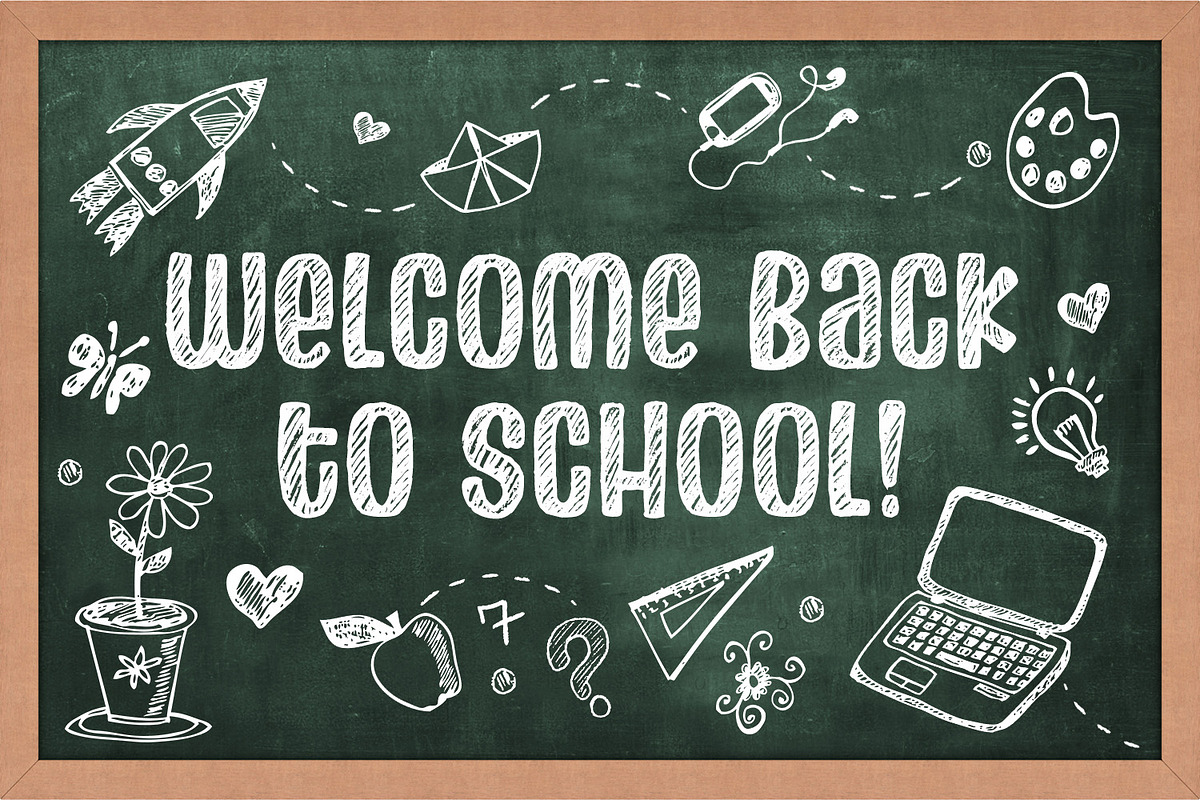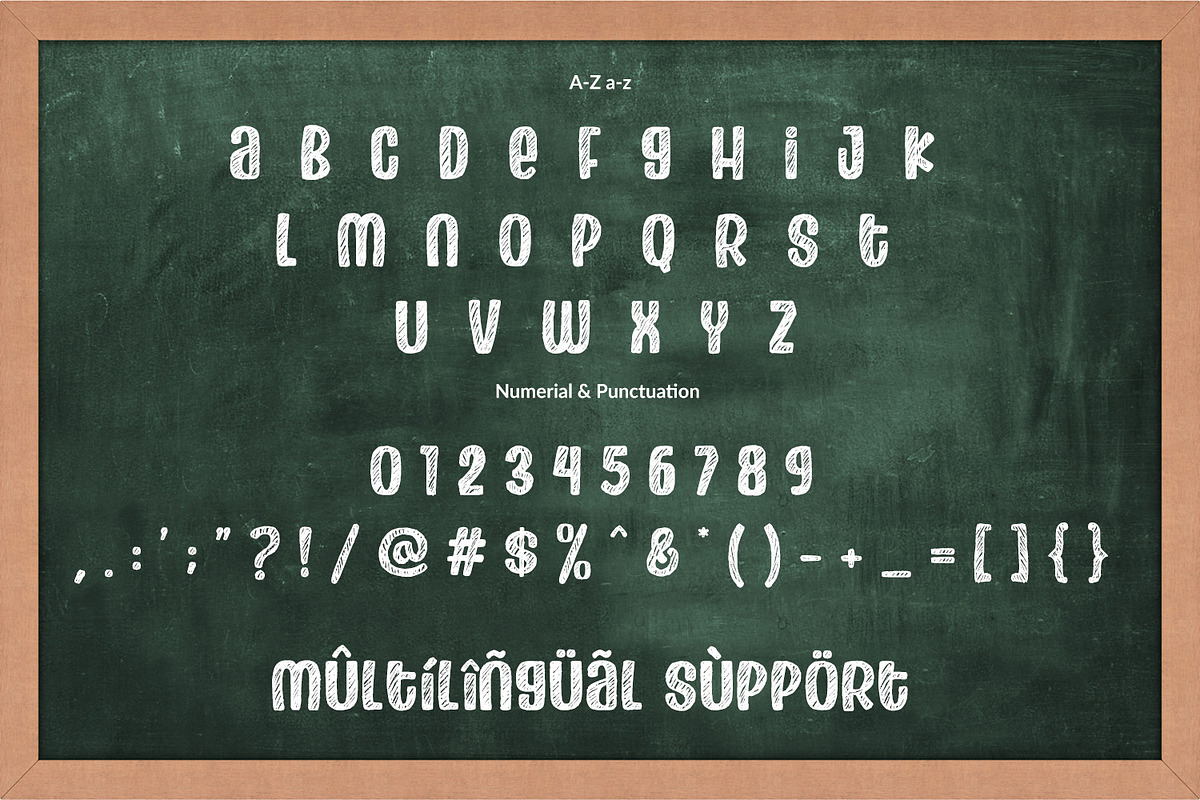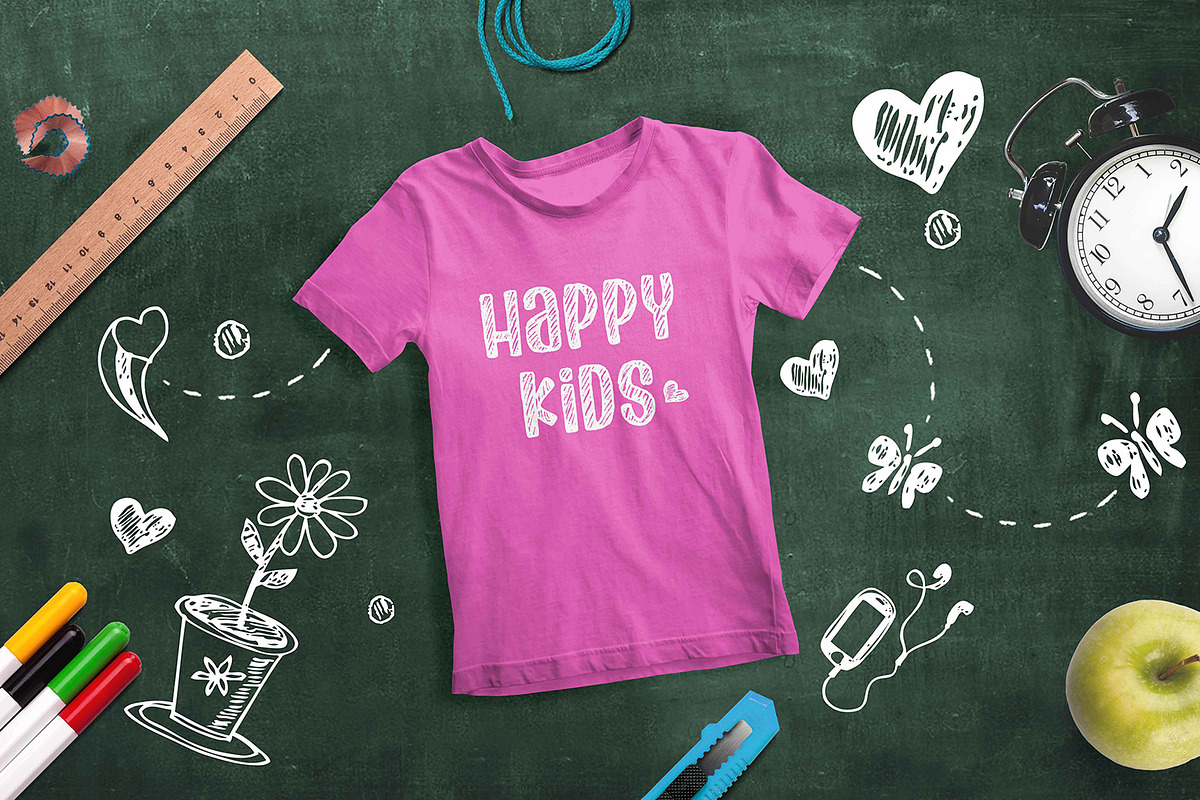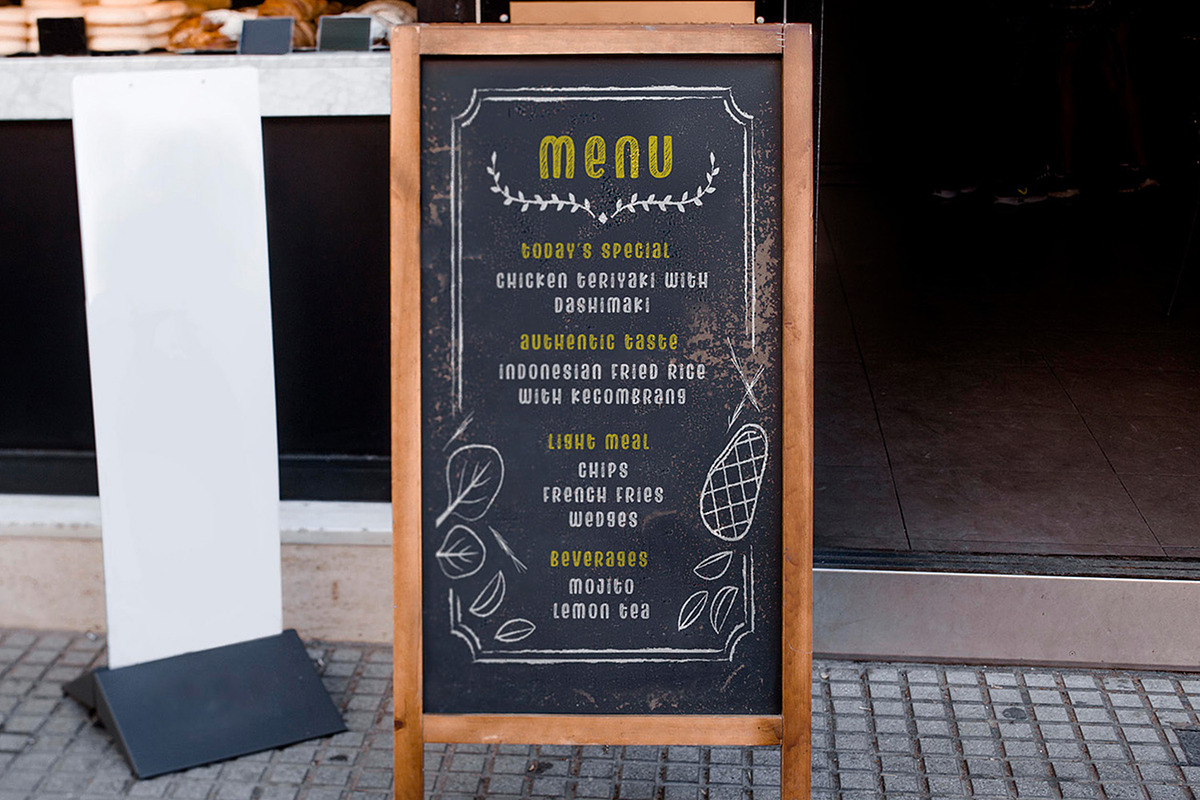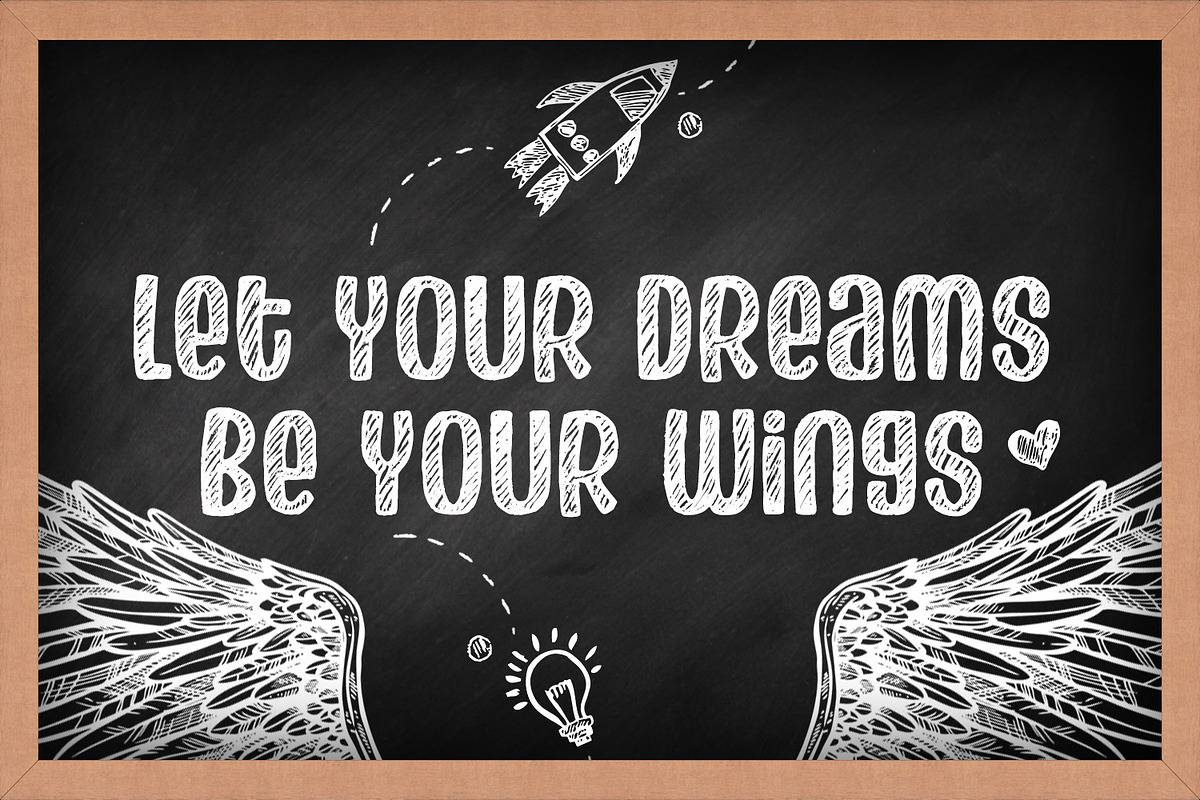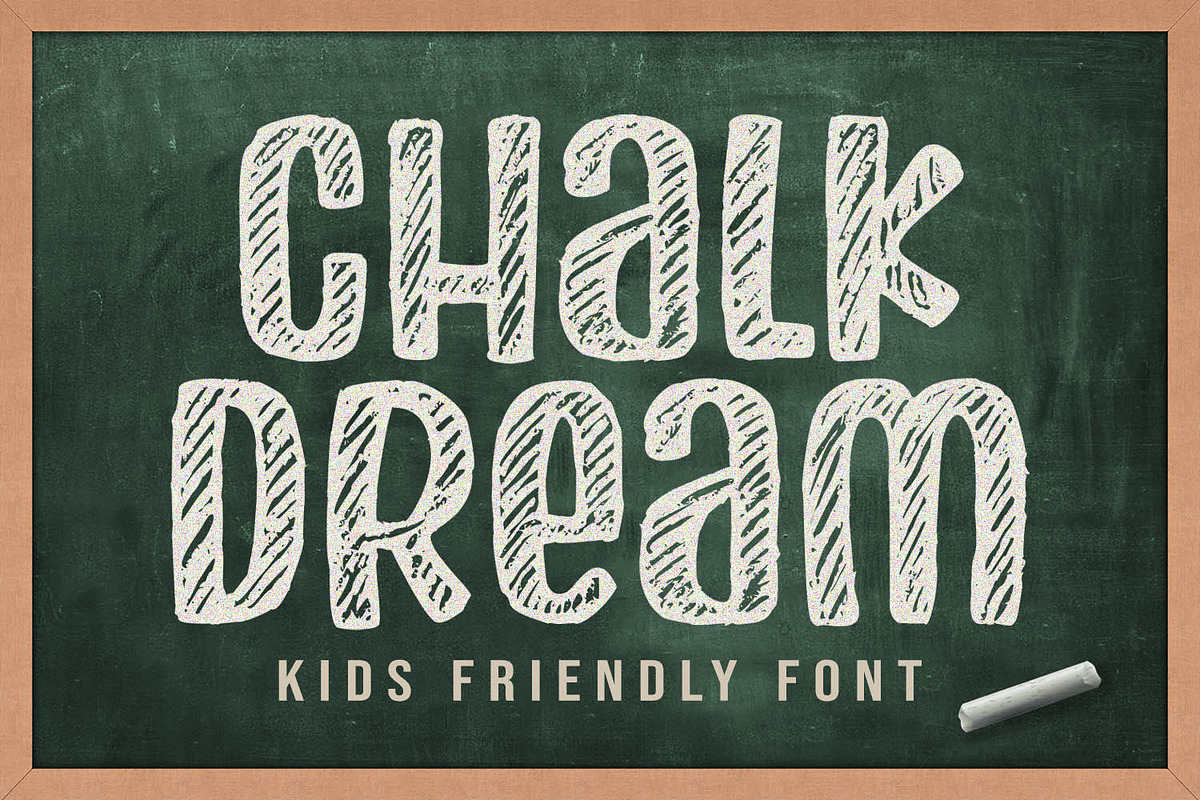
Chalk Dream
Chalk Dream is a fun display font. This font has realistic chalk texture, looks so organic. Chalk Dream is All-Caps font, and support many languages. It's perfect for any design project, such as cut, craft, advertising, clothing, branding, and many more.